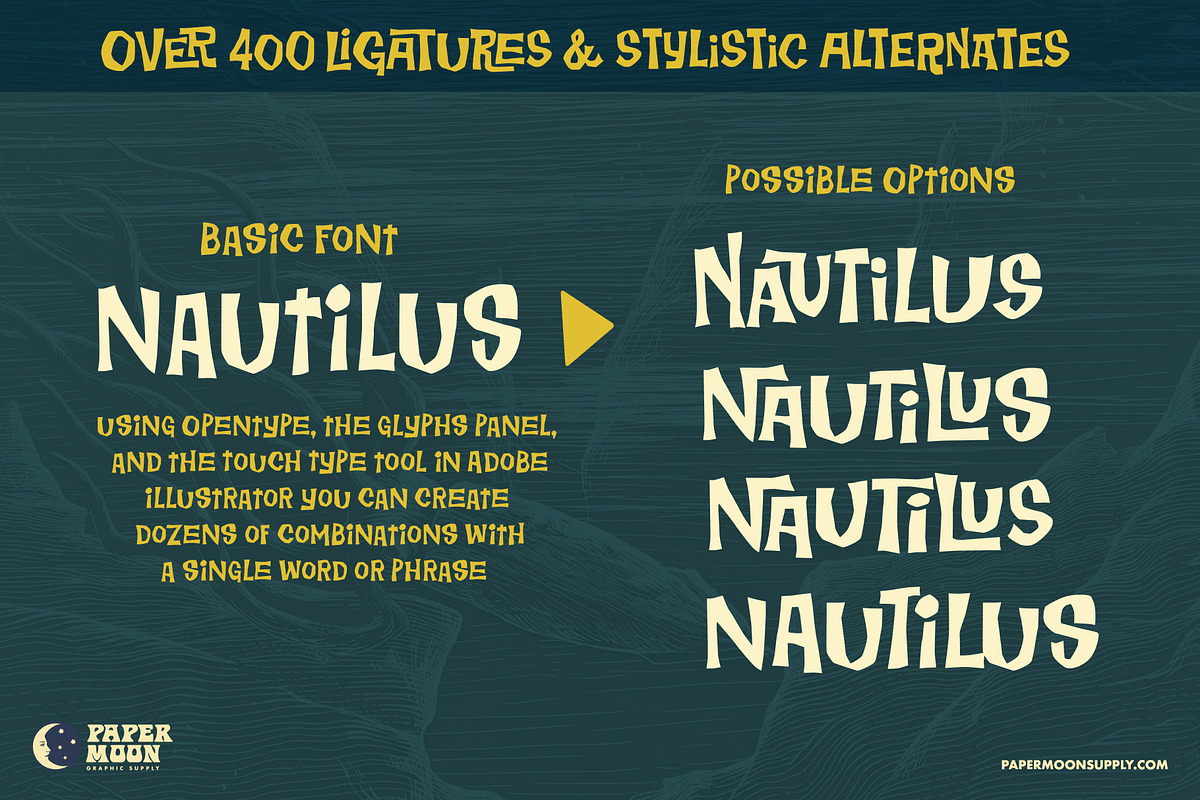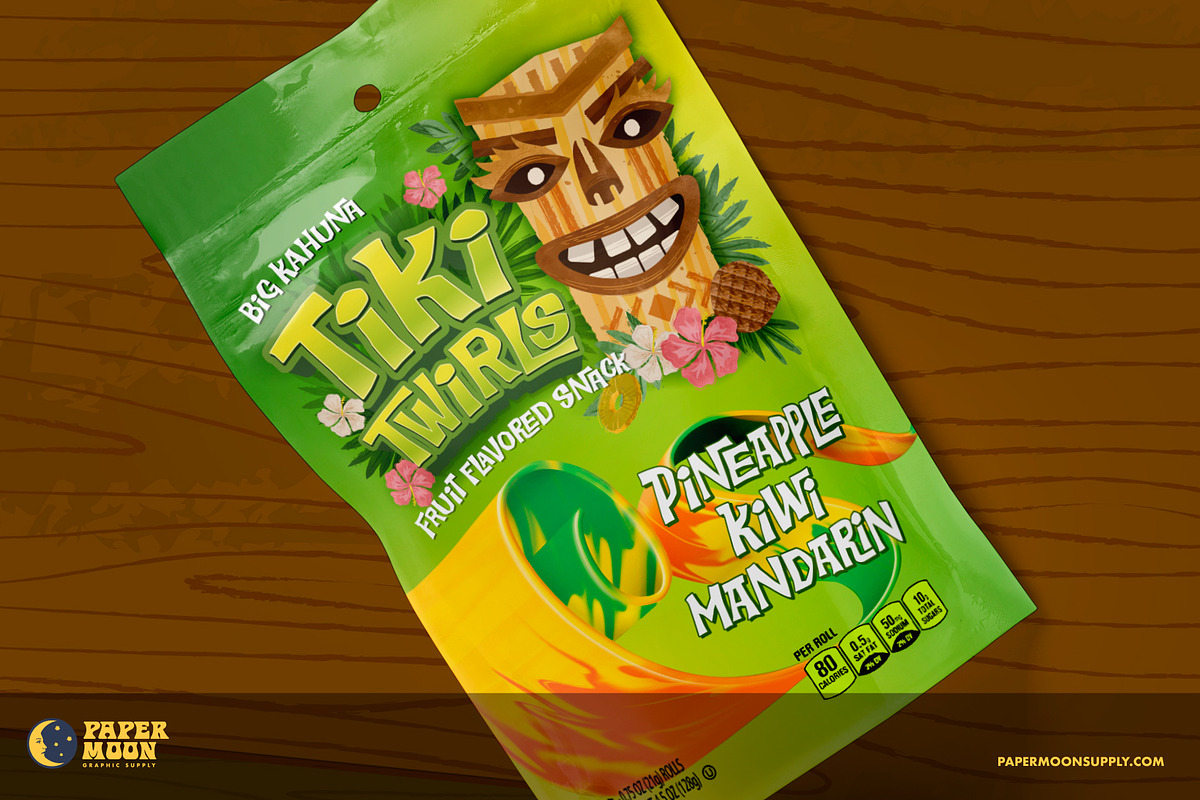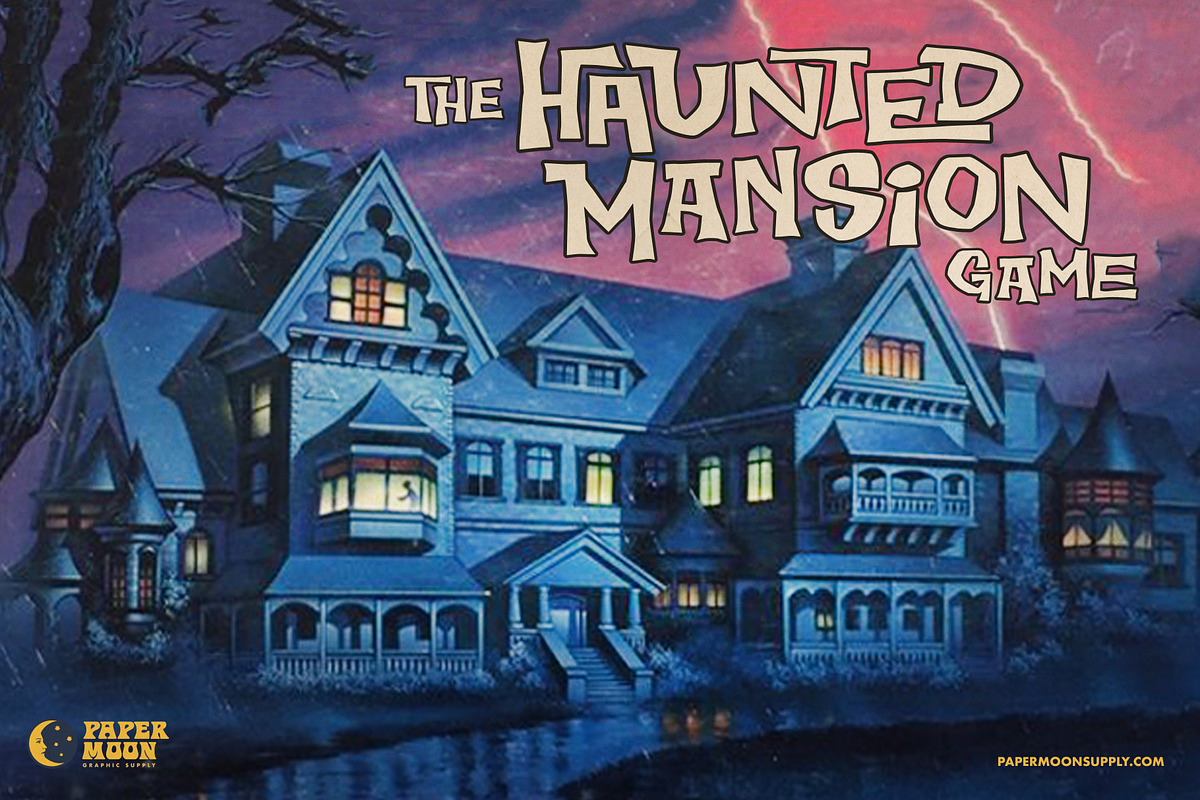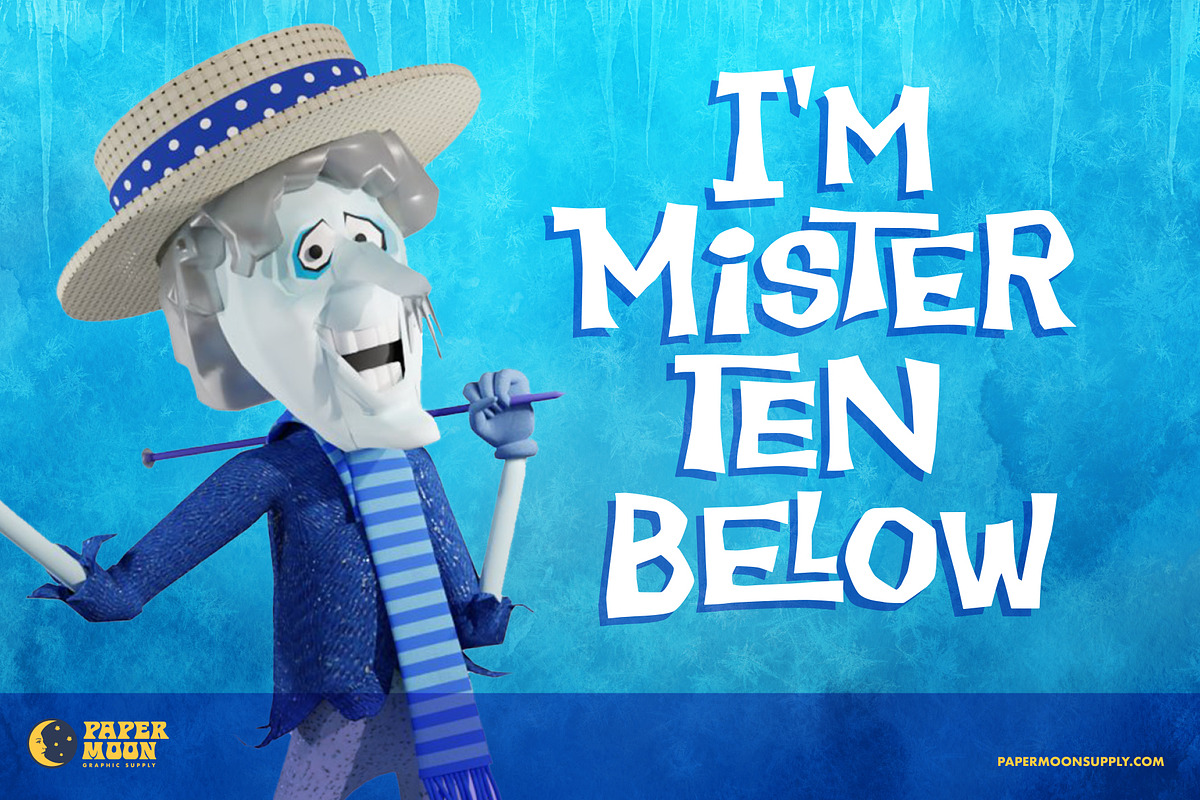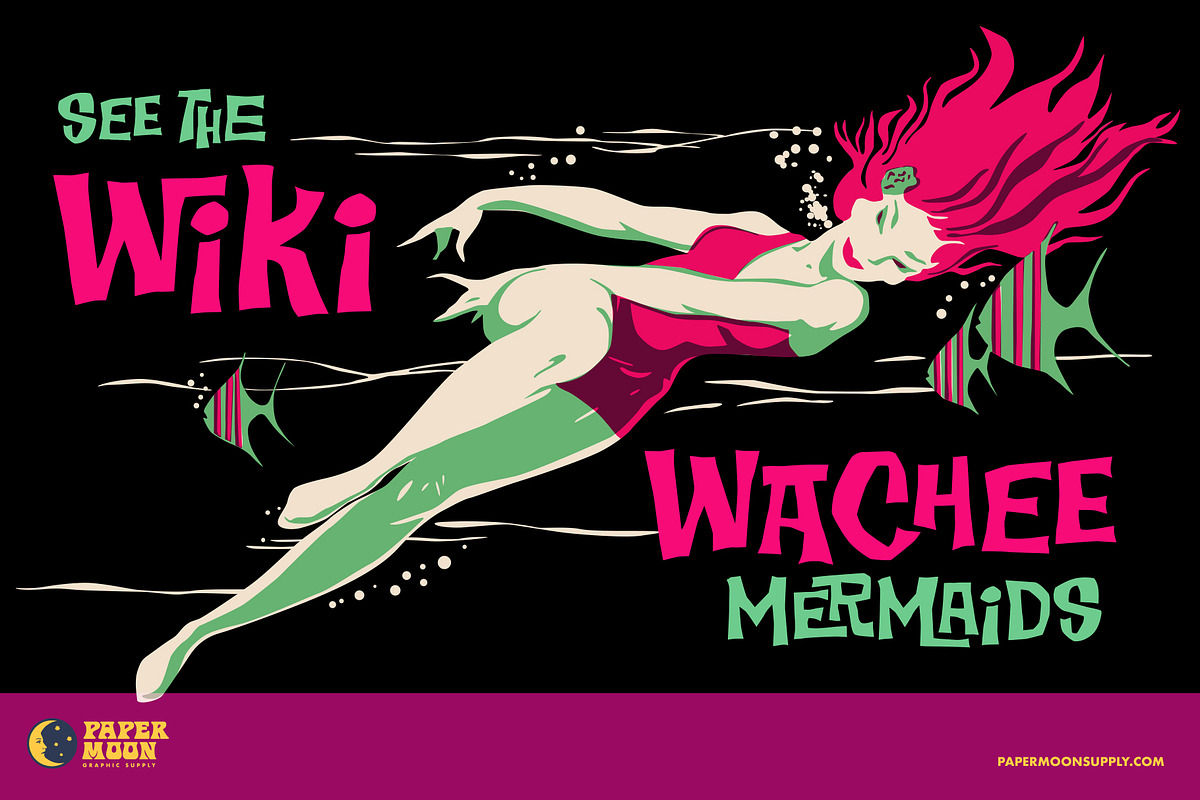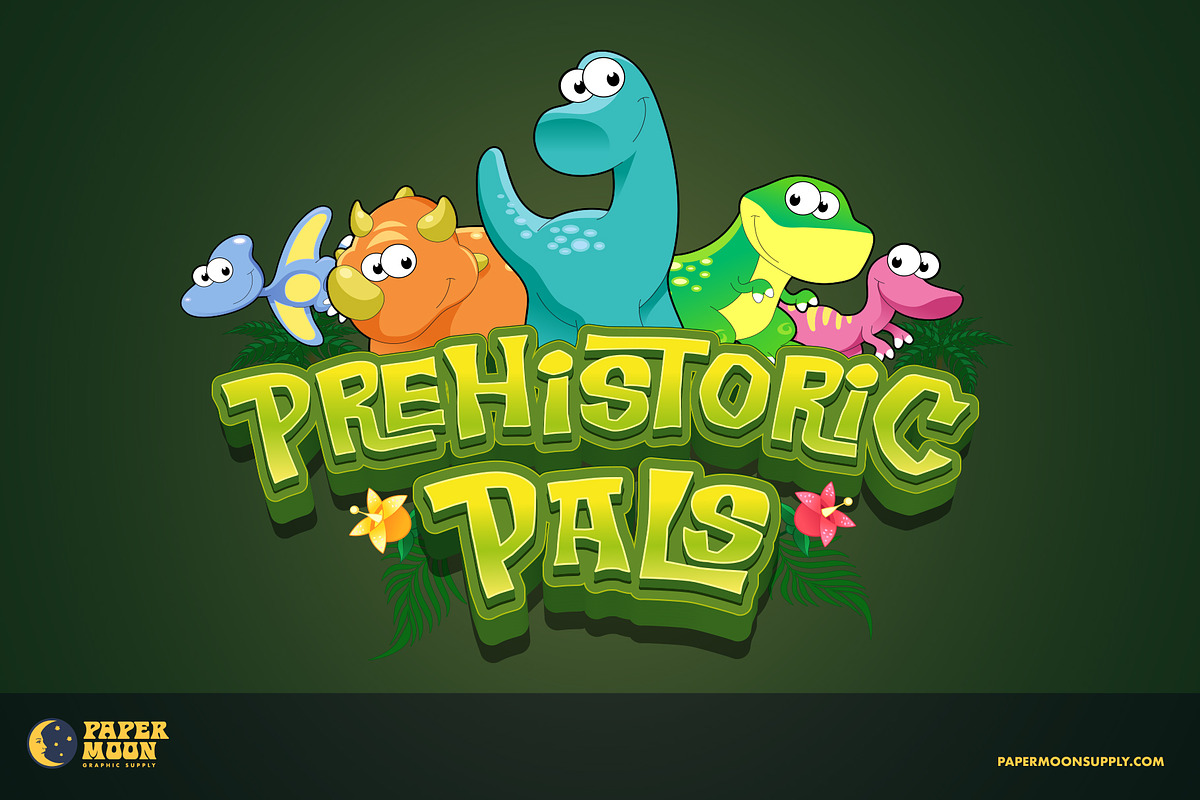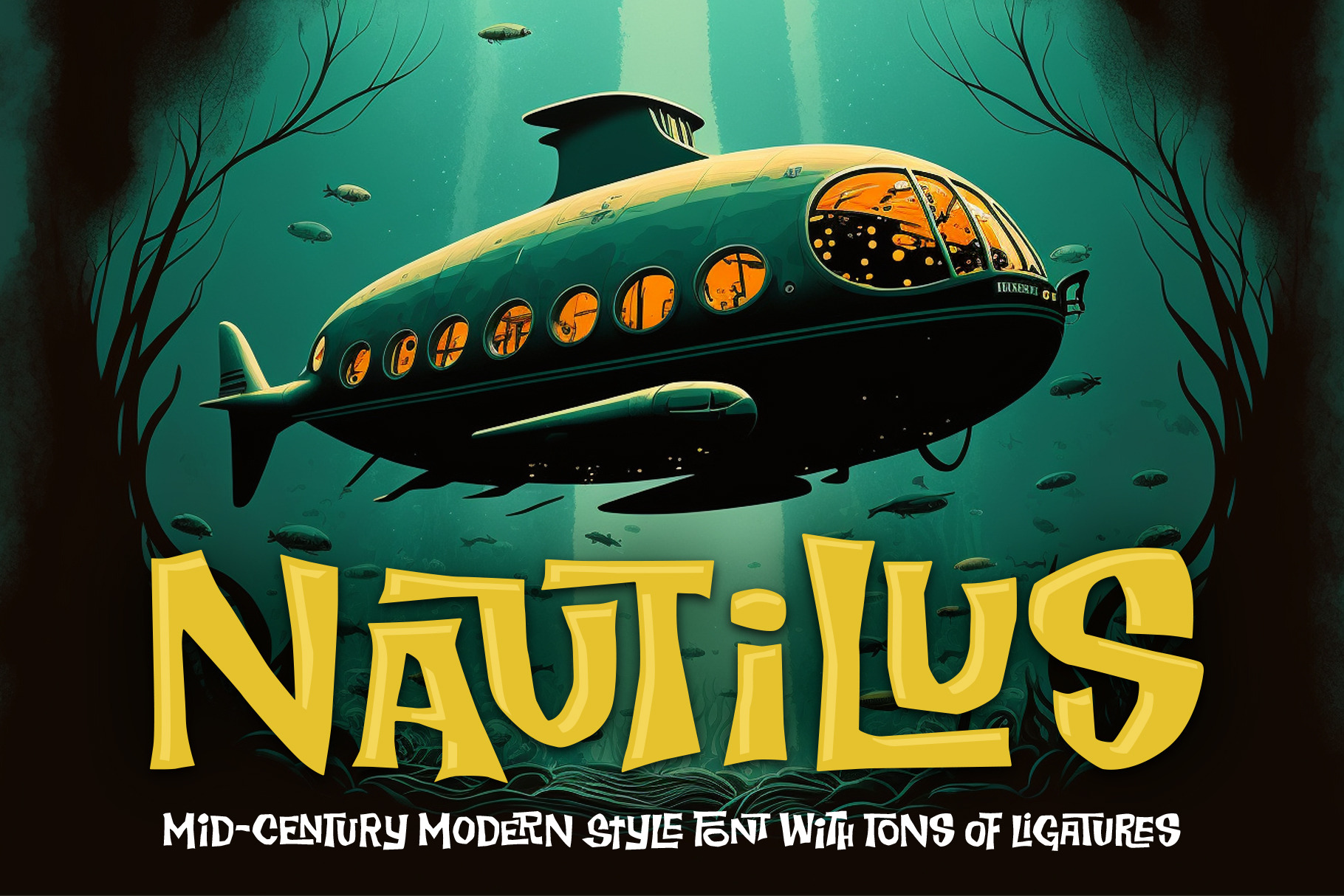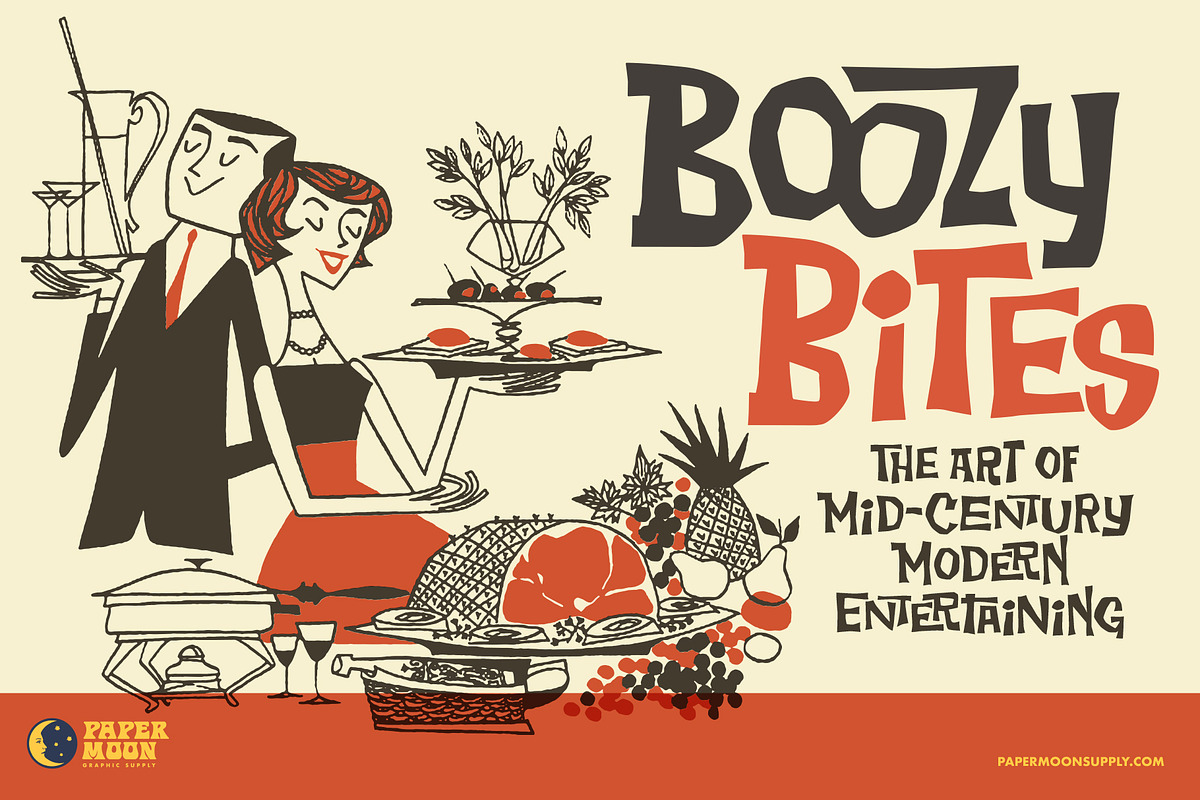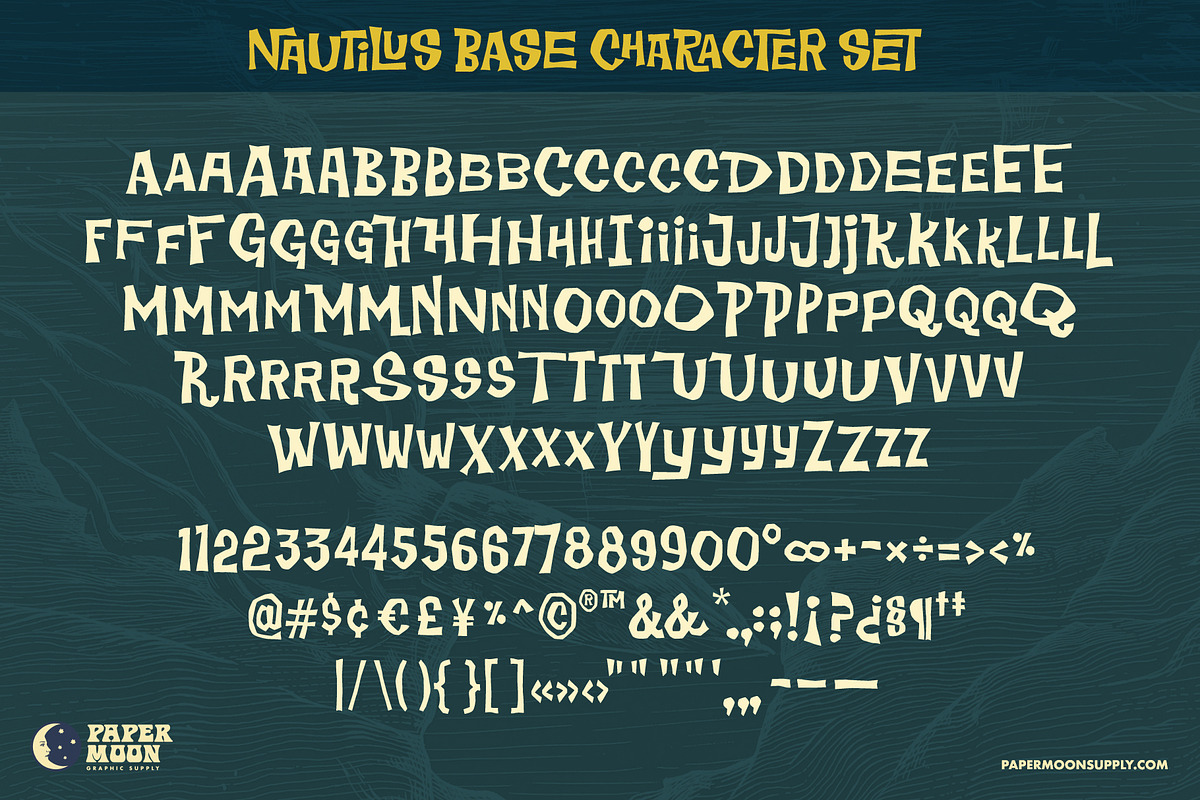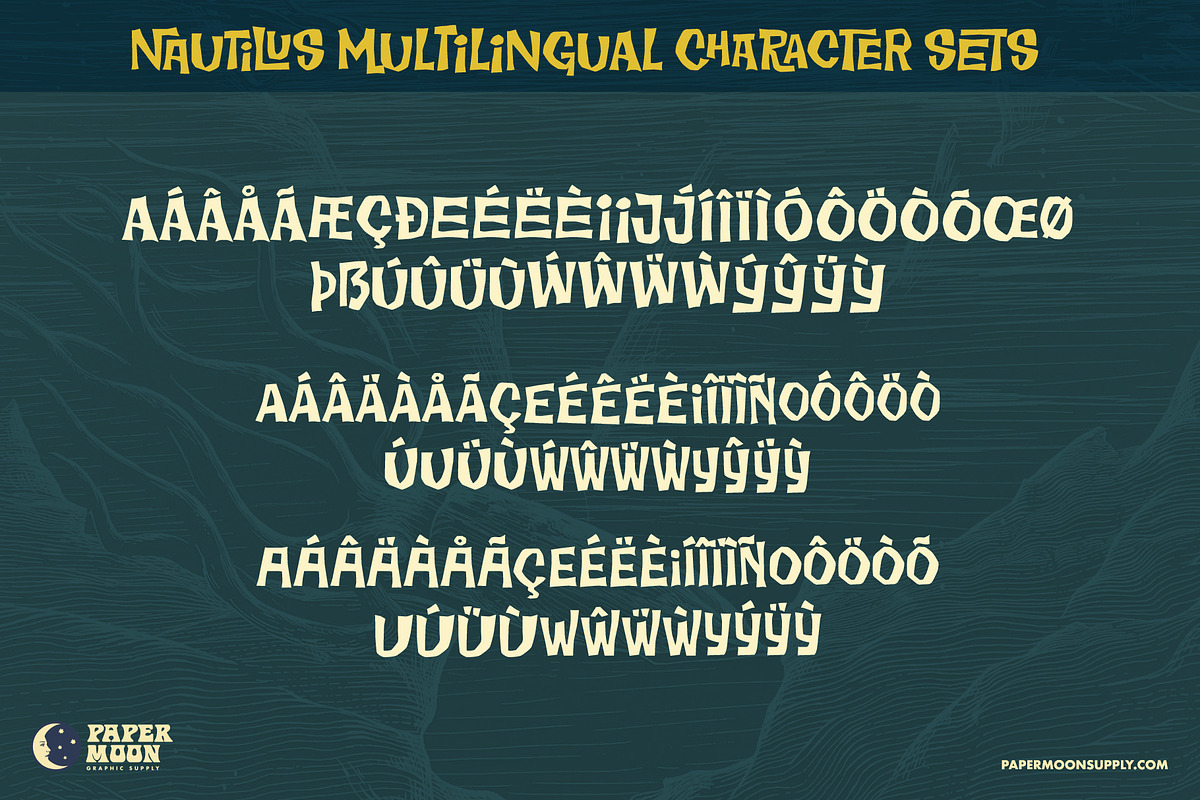
PM Nautilus Mid-Century Modern Font
A new casual hand-lettered Mid-Century Modern font from Paper Moon Graphic Supply
PM Nautilus is inspired by 1960s & 1970s fonts used on television openings, movie titles, and movie posters. It has a fun and casual vibe that works on everything from holiday marketing campaigns to tiki bar menus.
With over 400 ligatures and stylistic alternated you can create unique combinations of letters and words with out repeating the same character strings making your design look like authentic hand-lettered type. Ligatures and alternates can be automatically applied using Adobe opentype control panel or added manually with the glyphs panel.
- Complete alphabet, number, and punctuation
- Multilingual support for all stylistic alternates
- Over 400 ligatures and alternate glyphs
PM Nautilus was developed by award-winning illustrator and designer Scott Banks.